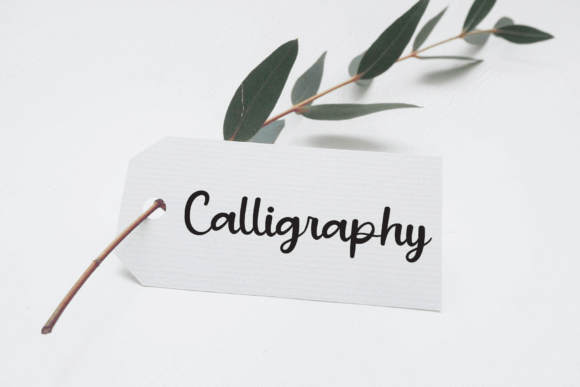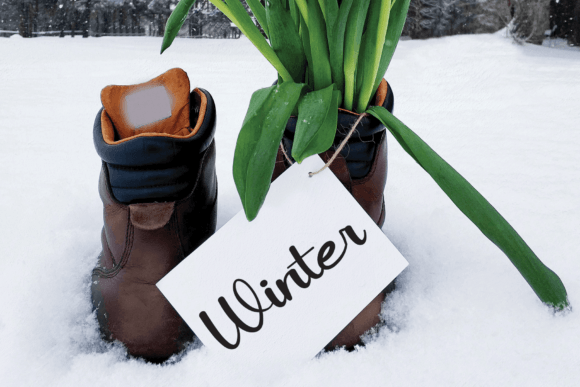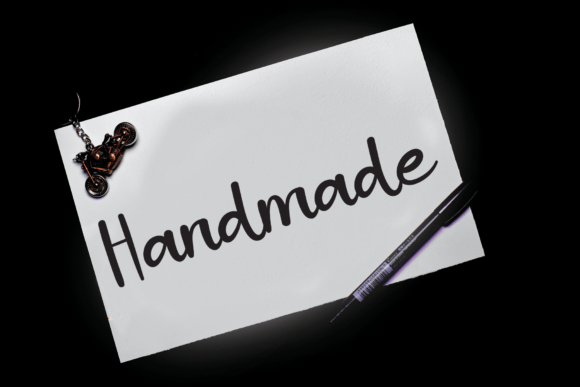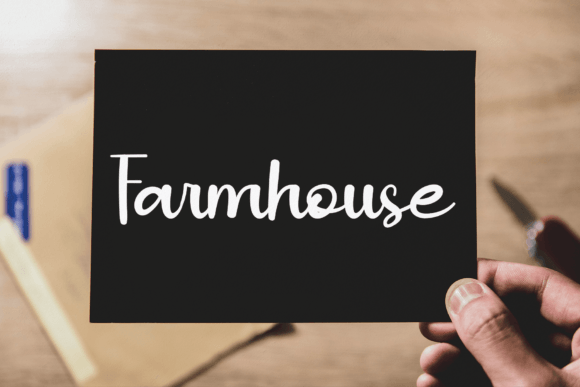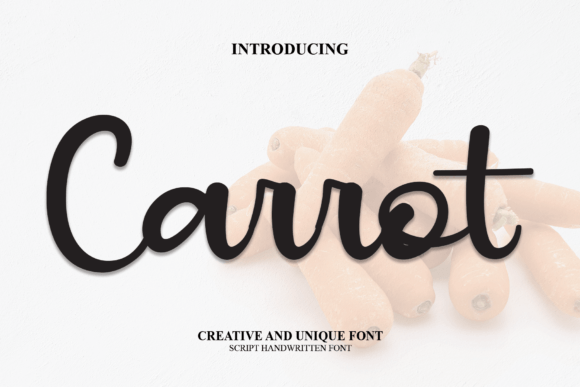
Introducing Carrot Font: The Elegant Handwritten Font for Your Design Needs
Are you tired of using the same old fonts for your design projects? Look no further! Carrot Font is a unique handwritten font that is sure to elevate your designs with its elegant touch. This beautiful font is perfect for designers, crafters, and anyone looking to add a touch of sophistication to their work.
A Timeless Style for Your Designs
Carrot Font boasts a totally different and timeless style that will make your designs stand out from the crowd. Its elegant touch is perfect for creating spectacular designs that will leave a lasting impression. Whether you’re working on a logo, brochure, or social media graphics, Carrot Font is the perfect choice.
What Makes Carrot Font So Special?
So, what sets Carrot Font apart from other fonts? Here are a few features that make it a must-have for designers and crafters:
- Unique Handwritten Style: Carrot Font is a handwritten font that is both elegant and playful. Its unique style is sure to add a touch of personality to your designs.
- Elegant Touch: The font’s elegant touch makes it perfect for designs that require a level of sophistication. Whether you’re working on a luxury brand or a high-end product, Carrot Font is the perfect choice.
- Timeless Style: Unlike other fonts that may go out of style quickly, Carrot Font has a timeless quality that will ensure your designs remain relevant for years to come.
- Versatile: Carrot Font is versatile and can be used for a wide range of design projects, from logos and brochures to social media graphics and more.
How to Use Carrot Font in Your Designs
Using Carrot Font in your designs is easy. Here are a few tips to get you started:
- Pair it with Other Fonts: Carrot Font pairs well with other fonts, making it easy to create visually appealing designs. Try pairing it with a bold font for a striking contrast.
- Experiment with Colors: Carrot Font looks great in a variety of colors. Experiment with different colors to find the perfect combination for your design.
- Use it for Headings and Titles: Carrot Font is perfect for headings and titles. Use it to add a touch of elegance to your designs.
Why Designers and Crafters Love Carrot Font
Designers and crafters love Carrot Font for its unique style and versatility. Here are a few reasons why:
- Easy to Read: Carrot Font is easy to read, making it perfect for designs that require a clear and concise message.
- Highly Legible: The font’s high legibility makes it perfect for designs that require a lot of text.
- Customizable: Carrot Font is highly customizable, making it easy to adjust the font to fit your design needs.
In conclusion, Carrot Font is a unique handwritten font that is perfect for designers and crafters looking to add a touch of elegance to their designs. Its timeless style, elegant touch, and versatility make it a must-have for any design project. Whether you’re working on a logo, brochure, or social media graphics, Carrot Font is the perfect choice. So why wait? Fall in love with Carrot Font and use it to create spectacular designs that will leave a lasting impression.